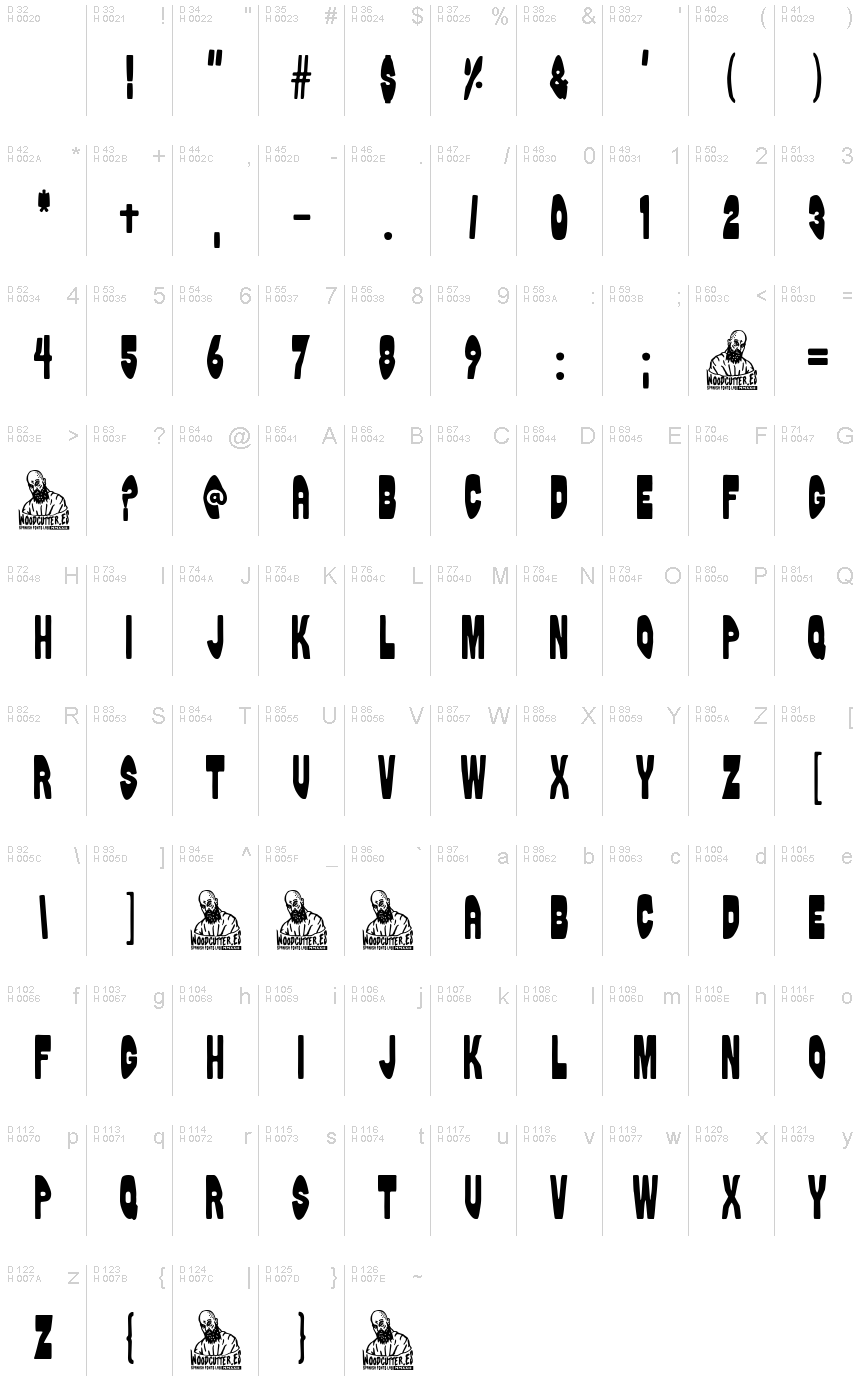
Puerto Rico Beach
Puerto Rico Beach font, designed by Woodcutter, captures the essence of playful whimsy with its bold, cartoon-like design. The condensed form enhances its dynamic presence, making it an eye-catching choice for various applications.
Visually appealing and spirited, this font embraces a lively character that evokes thoughts of sun-soaked shores and vibrant beach scenes. Its striking weight draws attention while maintaining a sense of fun and approachability.
Ideal for event invitations, children's materials, or any project that seeks to evoke a carefree feeling, Puerto Rico Beach resonates with creativity and joy. Its unique personality makes it an excellent fit for branding, helping designs stand out in an engaging and memorable way.